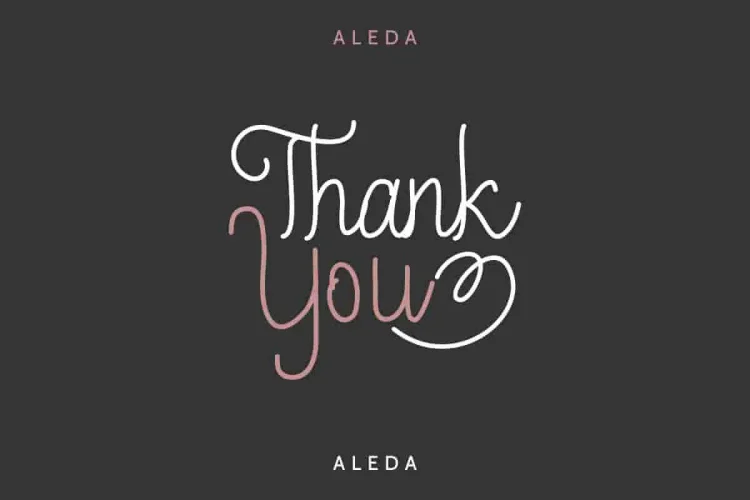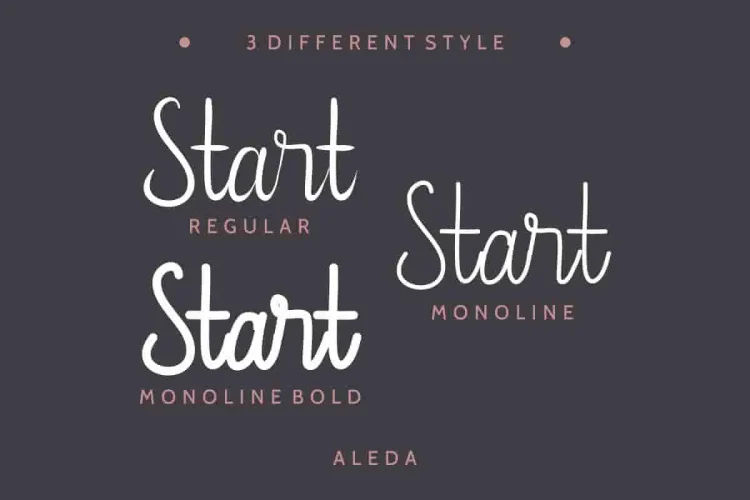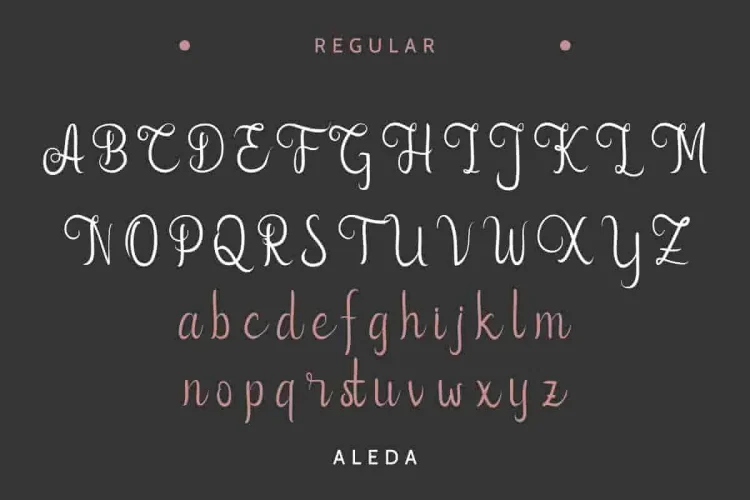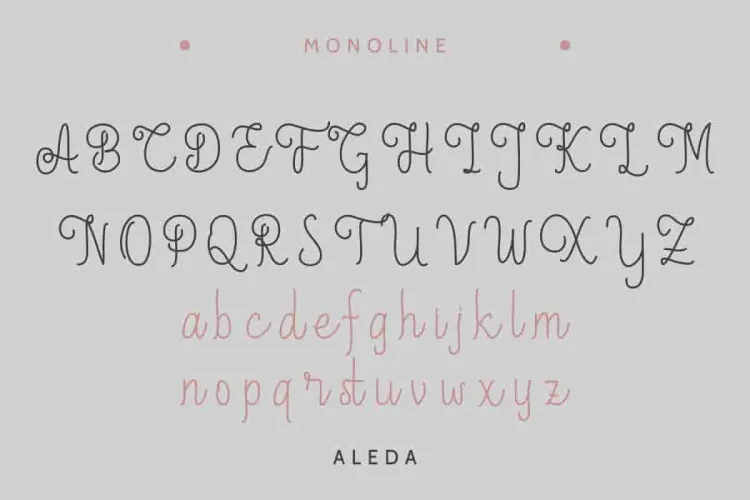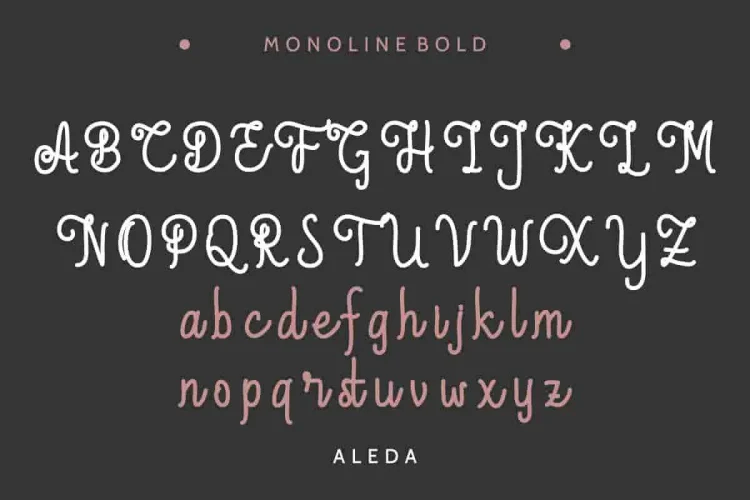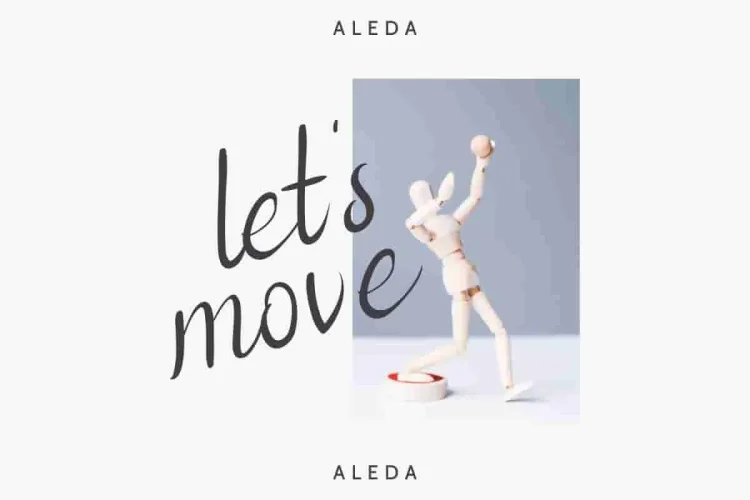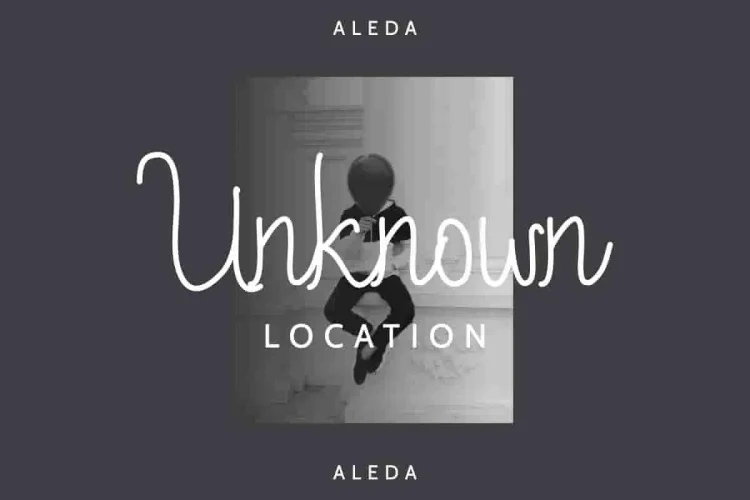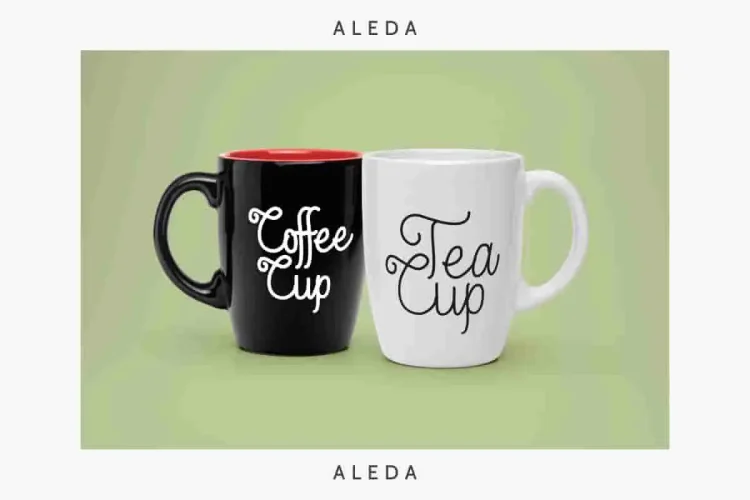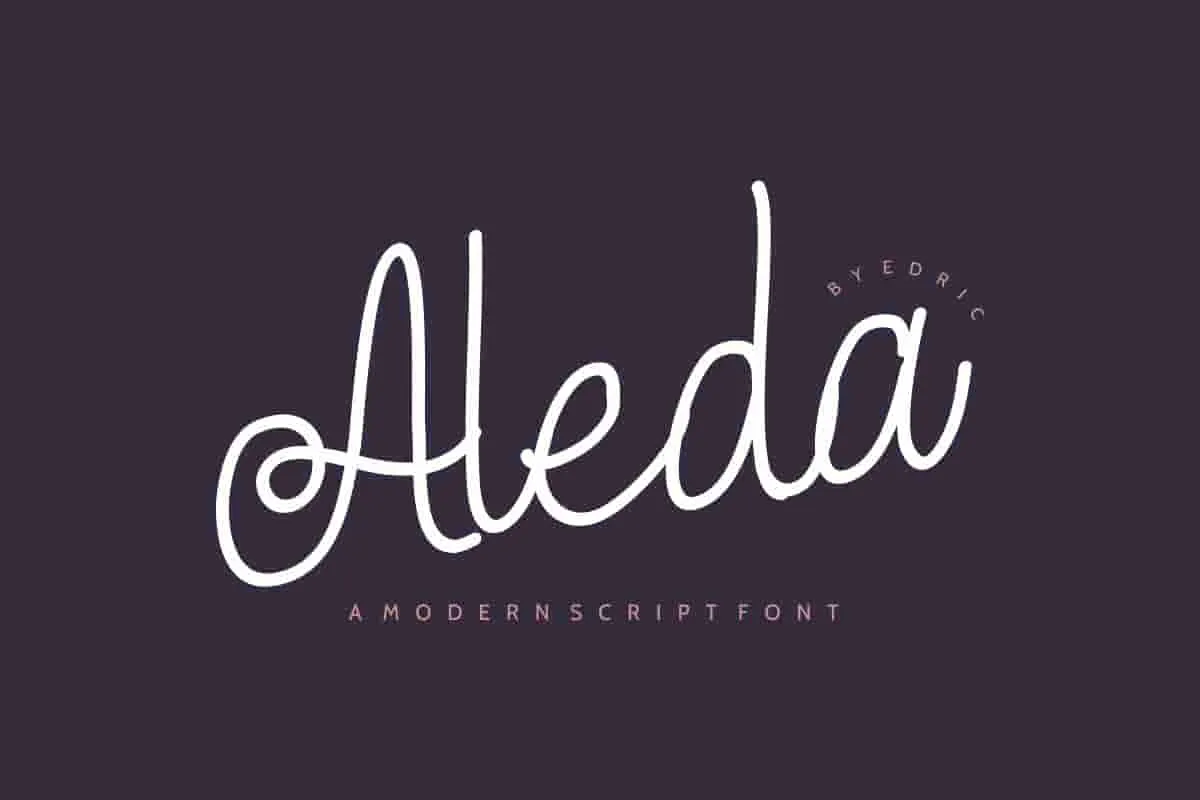
Aleda Script Handwritten Font
Hi Everyone! Introducing our newest font : Aleda ! Aleda is a modern script font with a handwritten, feminine signature style. It has a fresh, elegant, natural and stylish glyph. It’s perfect for handwritten projects, comics, or branding.
🔍 Explore Aleda’s Unique Styles
To give you even more flexibility Aleda comes in three distinct styles — Regular, Monoline, and Monoline Bold. Each variant offers a different personality:
• Regular: Elegant and expressive with playful curves, perfect for signature branding and titles.
• Monoline: Balanced and delicate with even strokes, ideal for minimalist designs or upscale wedding invitations.
• Monoline Bold: Strong yet still feminine — the perfect weight for visibility in logos or product labels.
The letterforms are smooth, flowing, and modern, making your text look stylish while staying easy to read. Each stroke feels intentional, adding charm and character to your message.It is a elegance styling font which will be great for branding, logo, photography , signature, watermark etc. It is so elegant, classy, strong and beautiful.
🤍 Why Choose Aleda?
If you’re looking for a font that’s classy, beautiful, and personal — Aleda is the answer.
It brings elegance to every project while staying versatile and easy to use.